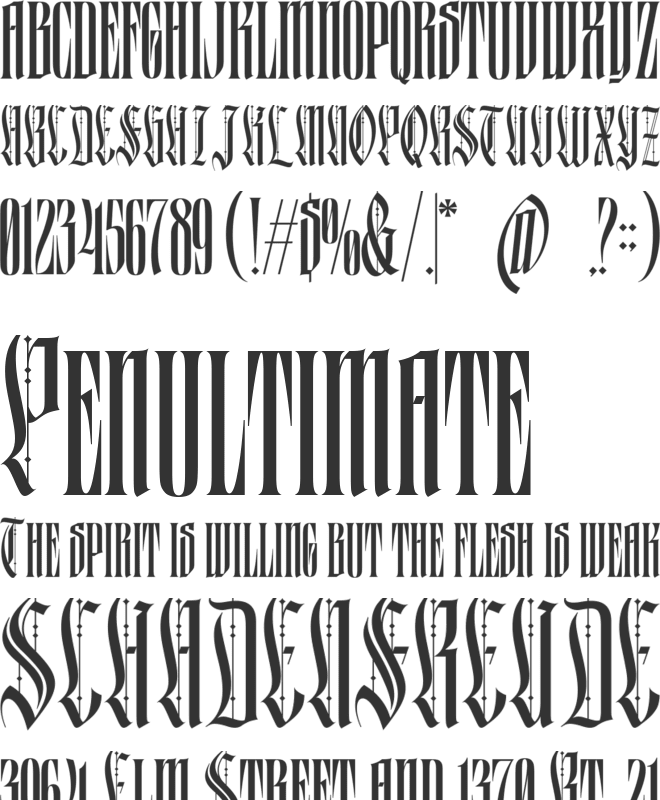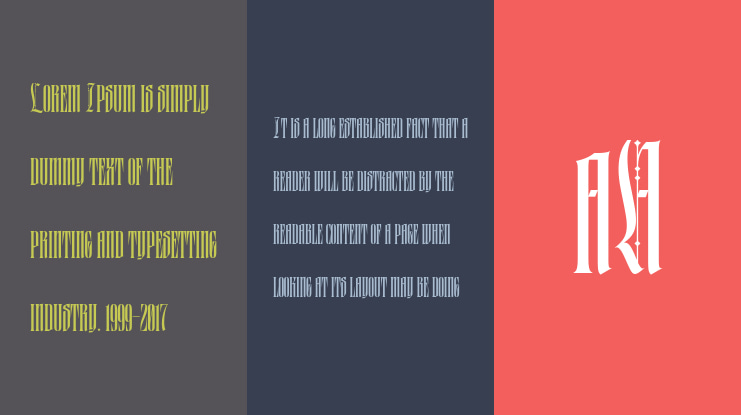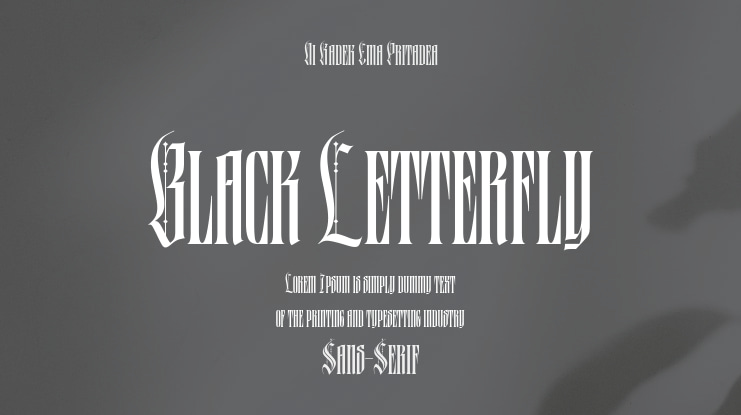
Black Letterfly Font
Ni Kadek Ema Pritadea
Black Letterfly Typeface
Introduce Black Letterfly, a striking, elegant, and modern blackletter typeface that seamlessly blends classical gothic aesthetics with contemporary graphic design. Featuring a total of 986 glyphs, this font is meticulously crafted to give your projects a majestic, mysterious, and high-end feel.
Inspired by vintage engravings, dark fantasy art, and modern streetwear culture, Black Letterfly comes packed with extensive stylistic sets (SS01 to SS06), gorgeous alternates, intricate ligatures, and comprehensive multilingual support. Whether you are designing album art, luxury apparel, gothic branding, book covers, or striking editorial layouts, Black Letterfly delivers a bold and unforgettable visual impact.